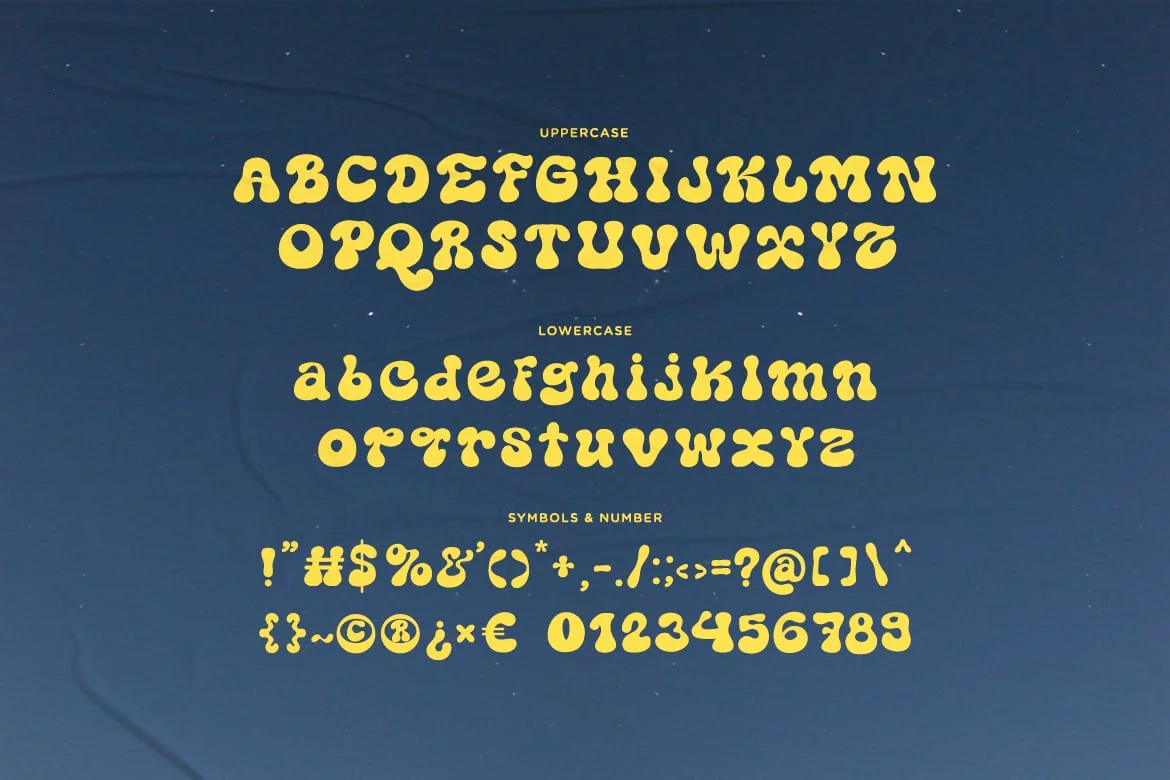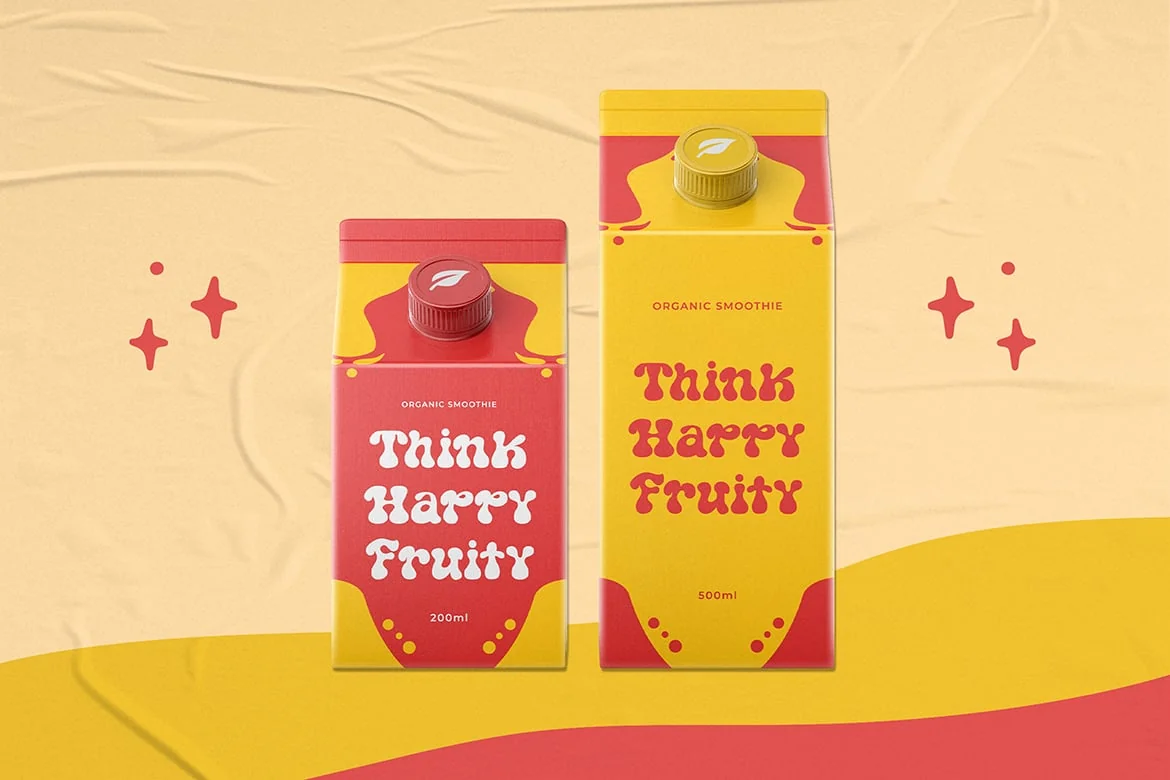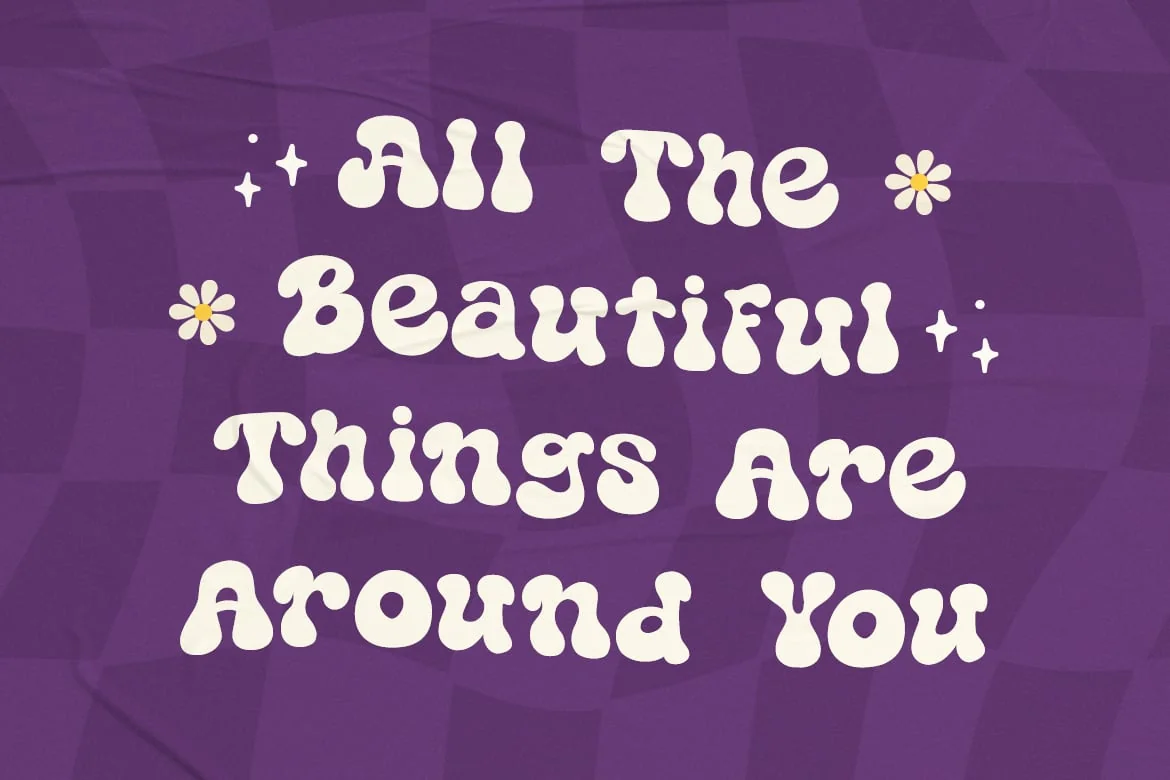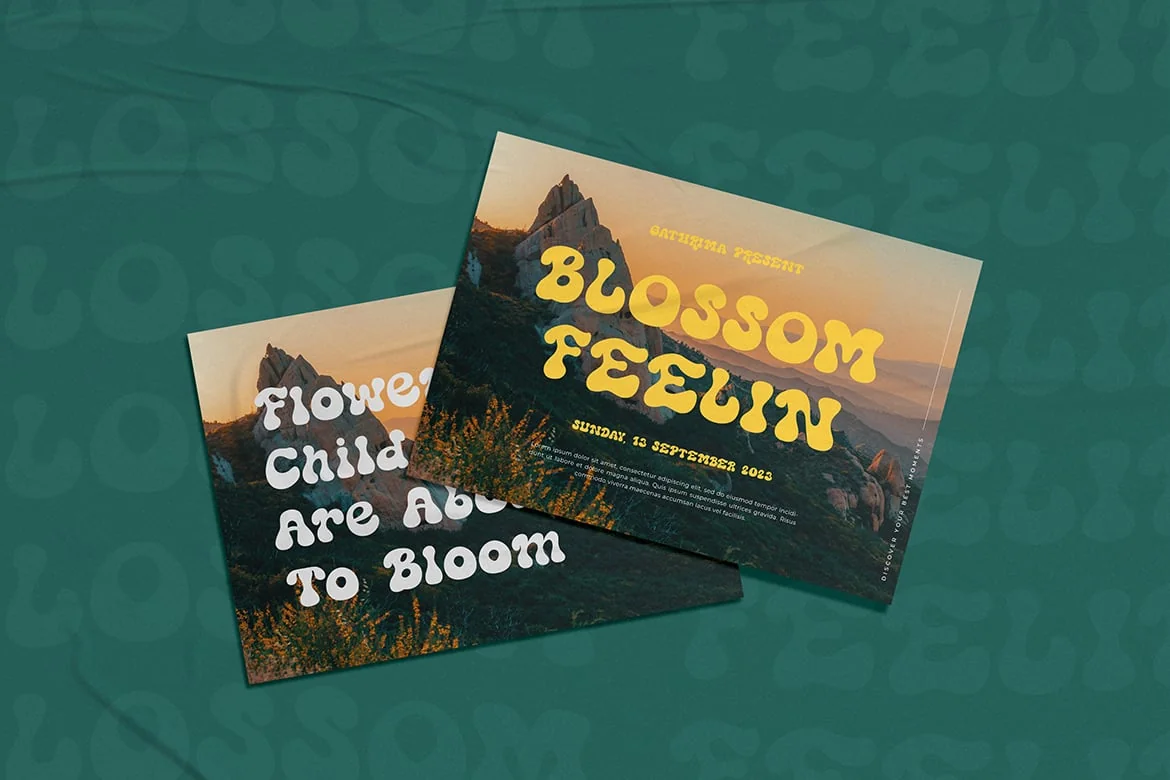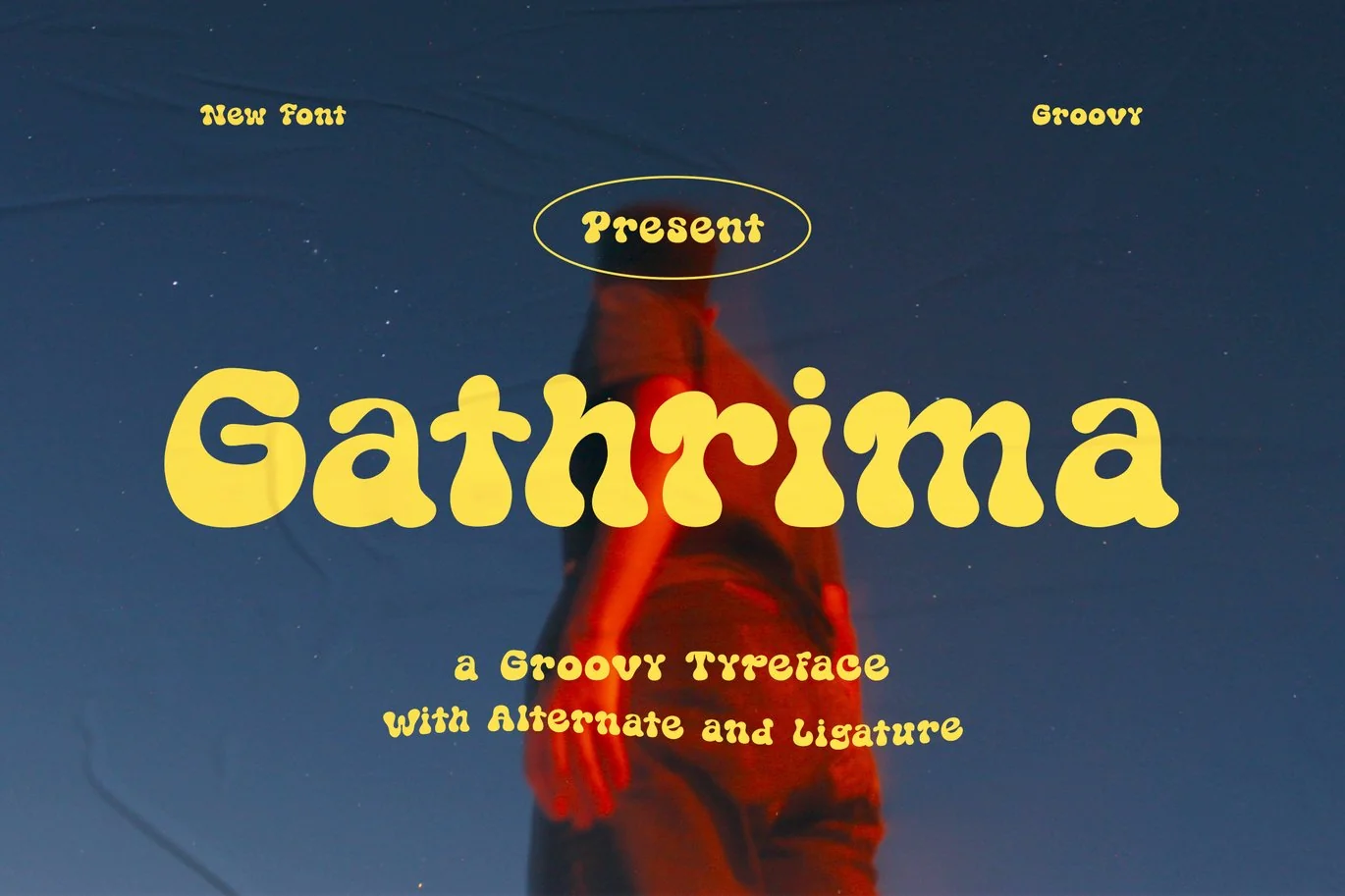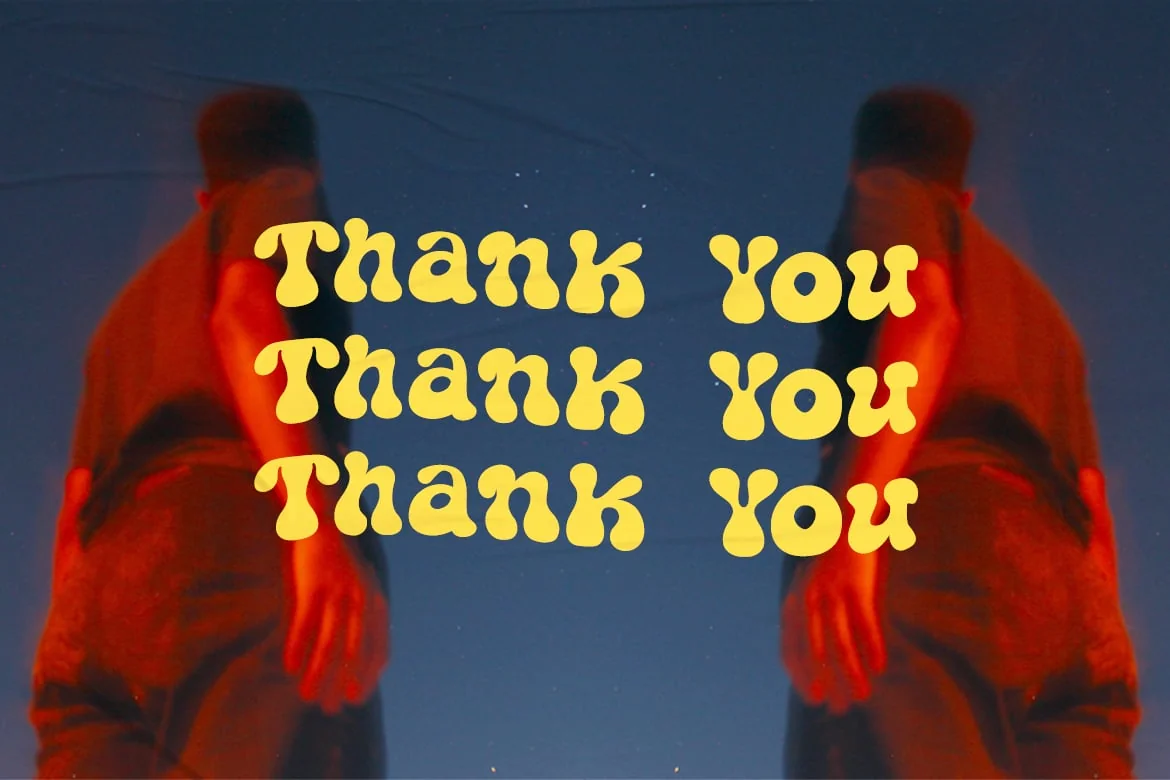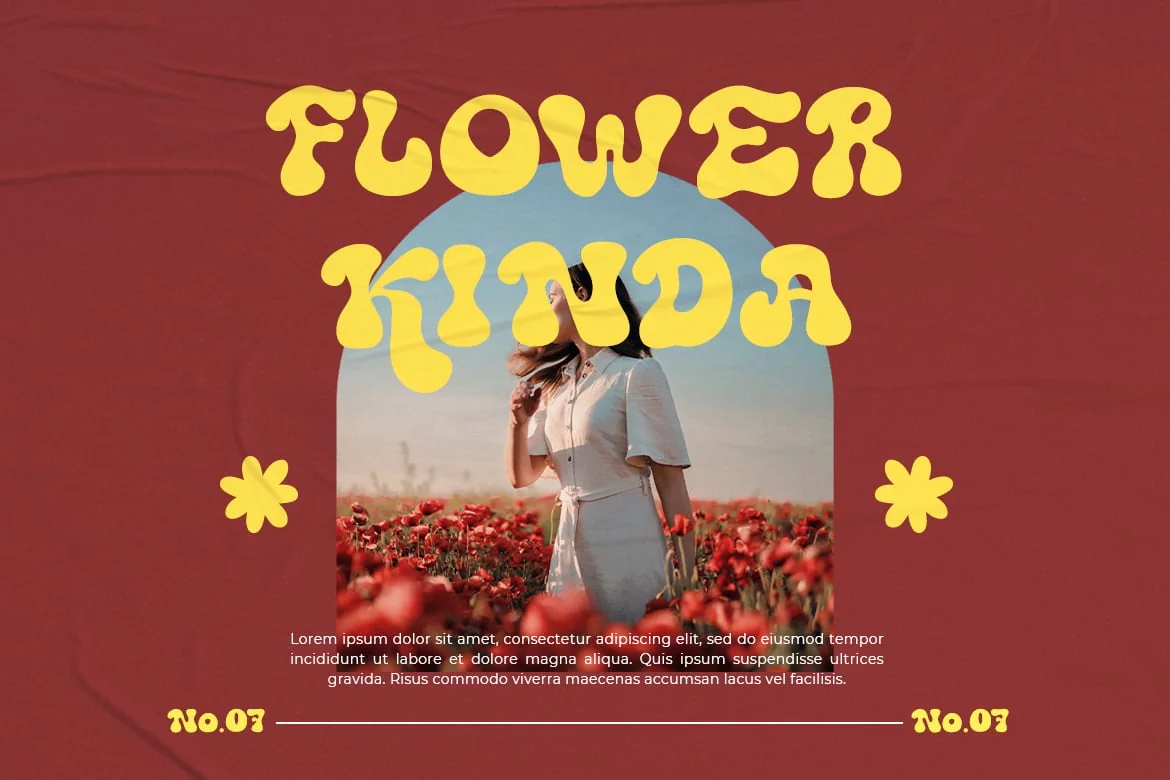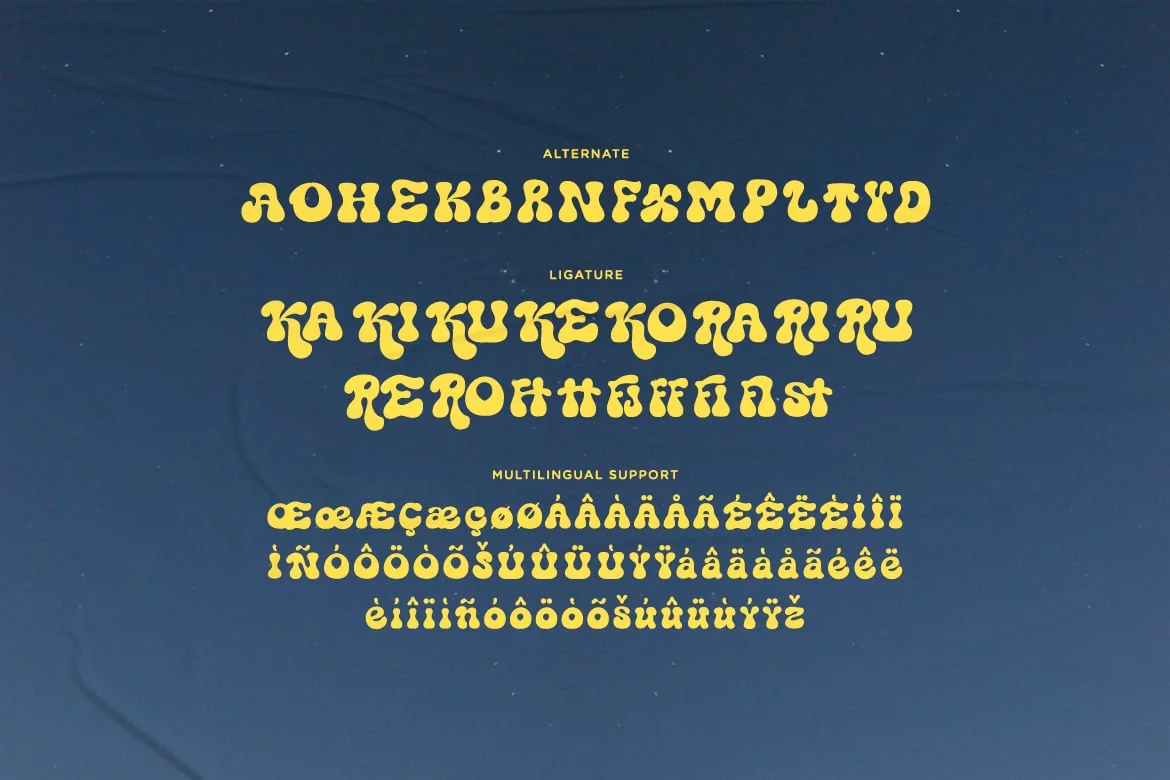
Gathrima – A Groovy Typeface
Introducing, Gathrima. A groovy font that will bring you to fun vibes.
Gathrima feels playfully nostalgic and delivers an incredible groovy aesthetic.
Use this display font to add that special touch to any design idea you can think of!